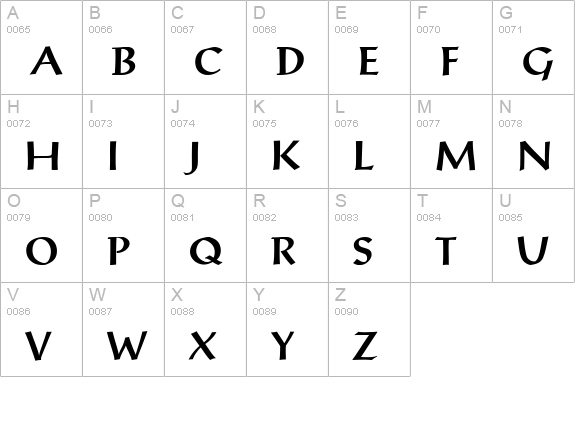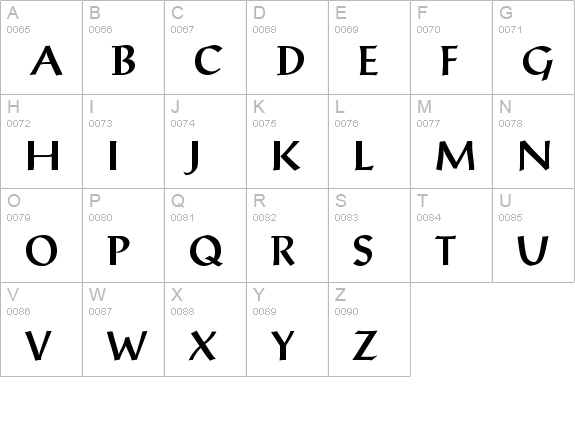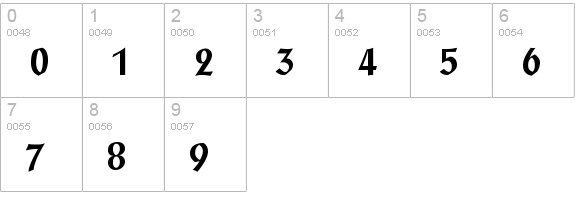
Post-Antiqua (R) Medium is a balanced, medium-weight variant in the Post typeface family \xE2\x80\x94 well suited to sub-headlines, navigation, and balanced editorial work.
Post-Antiqua (R) Medium font is a timeless and elegant typeface that combines the classic aesthetics of antiqua fonts with a modern twist. Its medium weight strikes the perfect balance between sophistication and readability, making it suitable for a wide range of design projects. This versatile font features gracefully curved serifs, balanced letterforms, and a harmonious overall design that exudes professionalism and refinement. Whether used for body text in print materials or headlines on digital platforms, Post-Antiqua (R) Medium adds a touch of sophistication to any project. Best of all, Post-Antiqua (R) Medium font is available for free download at FontsMarket.com, allowing designers and creatives to access this premium typeface without any cost. Embrace the timeless beauty and versatility of Post-Antiqua (R) Medium font in your next design project and elevate your typography to new heights.